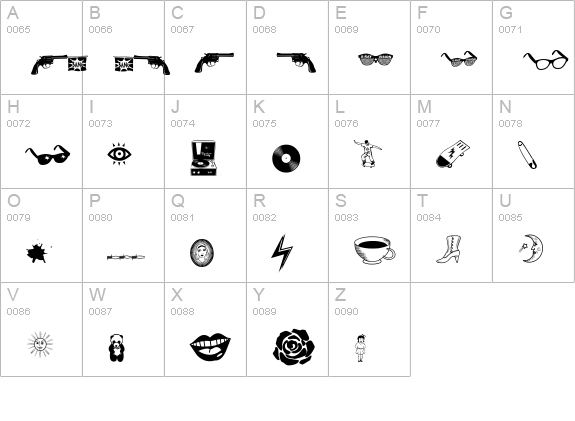
Kool Ding Font Details
Introducing Kool Ding font, a fun and quirky typeface that will add a touch of playfulness to any design project. This unique font features a variety of decorative elements and symbols that are perfect for adding a creative flair to your work. What's even better is that Kool Ding font is available for free! Yes, you read that right - you can download this charming font at FontsMarket.com without spending a dime. Whether you're working on a poster, invitation, or any other creative project, Kool Ding font is sure to make a statement and delight your audience. With its eye-catching design and versatile character set, Kool Ding font is a must-have for any designer looking to infuse their work with personality and charm. Download it for free today and let your creativity shine with this delightful typeface.